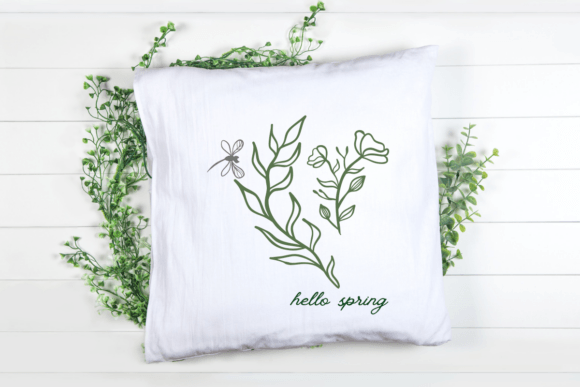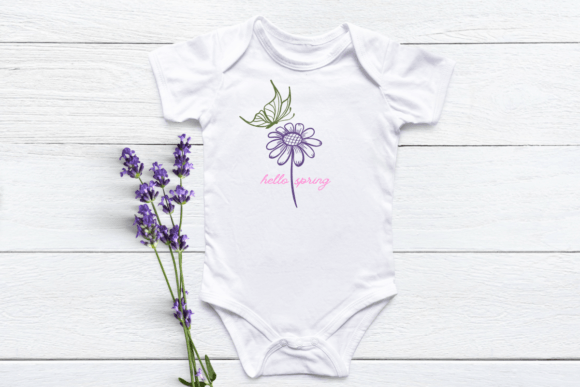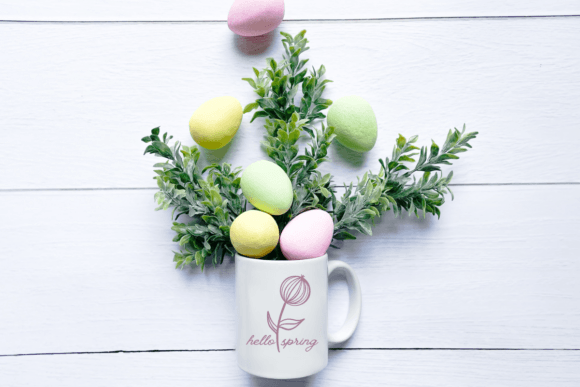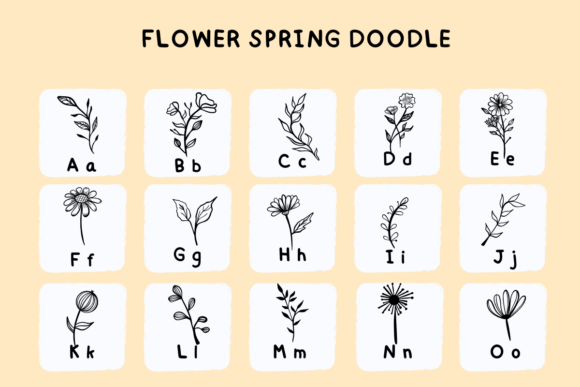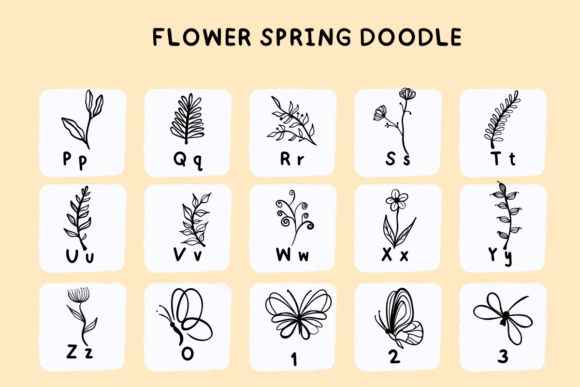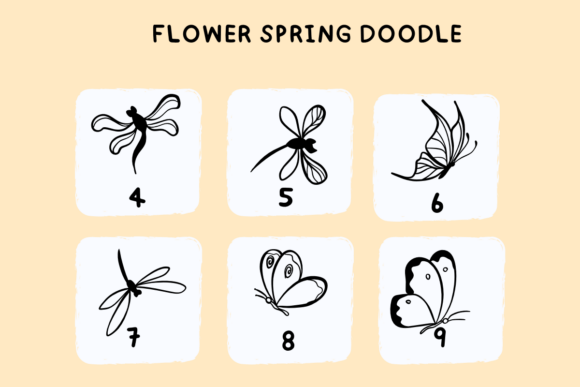
Introduction to Flower Spring Doodle Font Font
Fonts play a crucial role in design, and the Flower Spring Doodle Font font is a typeface that brings both character and versatility to any project. Whether you’re working on a branding project, a website, or a print design, the Flower Spring Doodle Font font offers a unique style that can elevate your work.
| 📌 Font Name | Flower Spring Doodle Font |
| 👤 Author | Bee piyanuch |
Embark on a delightful exploration of design with Flower Spring Doodle, a captivating dingbats font with a whimsical sketch style.
Ideally suited to sprinkle a touch of charming elegance to your creative endeavors, be it wedding invitations, DIY projects or crafty creations This font illuminally enhances the aesthetic appeal of your decorative elements and can definitively define your logos.
Key Features of Flower Spring Doodle Font Font
Why Choose Flower Spring Doodle Font Font?
The Flower Spring Doodle Font font is more than just a typeface – it’s a design tool that helps you communicate your message with style and clarity. Its unique character set and versatile design make it suitable for a wide range of applications, from elegant invitations to bold headlines.
With its carefully crafted letterforms and balanced proportions, the Flower Spring Doodle Font font ensures readability and visual appeal across all mediums.
What makes Flower Spring Doodle Font font special?
The Flower Spring Doodle Font font stands out with its unique design, exceptional readability, and versatility across various design applications.